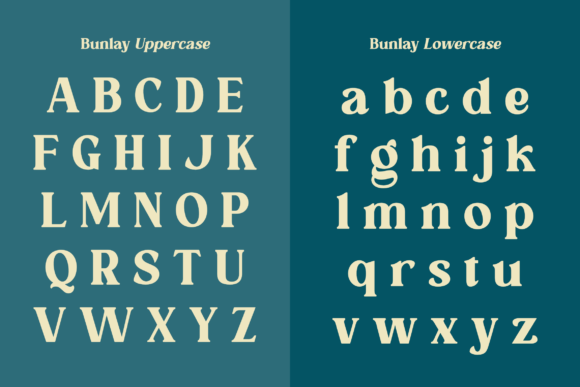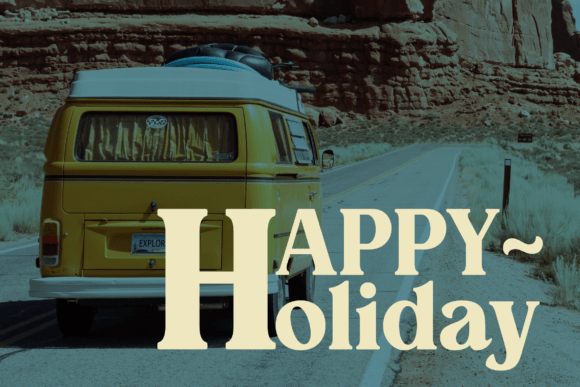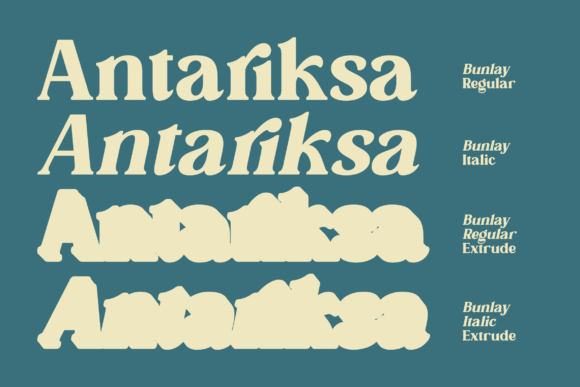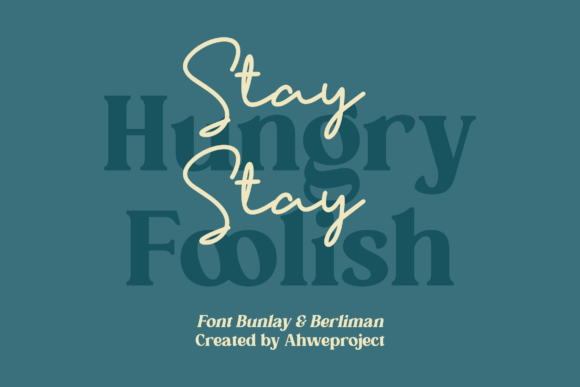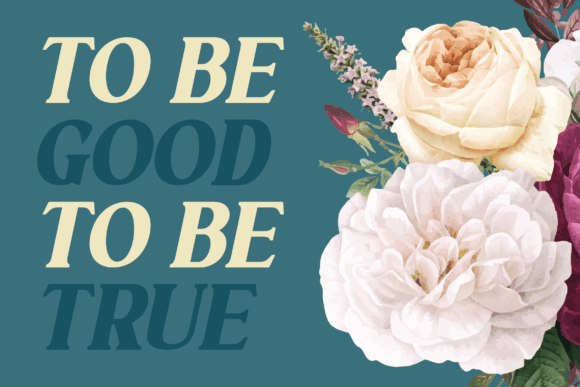
Bunlay Font: A Playfully Nostalgic Serif Font for Your Retro-Inspired Designs
Are you a designer or crafter looking for a font that can add a touch of nostalgia and vintage charm to your creative projects? Look no further than the Bunlay Font! This beautifully crafted serif font is designed to evoke a sense of playfulness and nostalgia, making it perfect for a wide range of design ideas. In this article, we’ll take a closer look at the Bunlay Font, its features, and how you can use it to take your designs to the next level.
A Font that Feels Playfully Nostalgic
The Bunlay Font is a masterfully designed serif font that delivers an incredible vintage aesthetic. Its unique character set and carefully crafted glyphs are designed to evoke a sense of nostalgia and playfulness, making it perfect for designers and crafters who want to add a retro touch to their designs. Whether you’re working on a branding project, a packaging design, or a digital product, the Bunlay Font is sure to bring a smile to your face and a touch of personality to your work.
Masterfully Designed for Creative Freedom
The Bunlay Font is designed to become a true favorite among designers and crafters. Its PUA (Private Use Area) encoding means that you can access all of the glyphs and swashes with ease, giving you the creative freedom to experiment with different design ideas. With the Bunlay Font, you can add a special retro touch to any design project, from logos and branding to stationery and digital products.
Key Features of the Bunlay Font
- Serif Font: The Bunlay Font is a beautifully crafted serif font that delivers a vintage aesthetic.
- Playfully Nostalgic: The font is designed to evoke a sense of nostalgia and playfulness, making it perfect for retro-inspired designs.
- Highly Versatile: The Bunlay Font can be used for a wide range of design projects, from logos and branding to stationery and digital products.
How to Use the Bunlay Font in Your Designs
The Bunlay Font is incredibly easy to use and can be incorporated into your designs in a variety of ways. Here are a few ideas to get you started:
- Branding and Logos: Use the Bunlay Font to create a unique and memorable logo for your brand.
- Packaging Design: Add a touch of nostalgia to your packaging designs with the Bunlay Font.
- Stationery: Use the Bunlay Font to create beautiful and unique stationery, such as business cards, letterheads, and invoices.
- Digital Products: Incorporate the Bunlay Font into your digital products, such as ebooks, courses, and software.
Tips and Tricks for Getting the Most Out of the Bunlay Font
Here are a few tips and tricks for getting the most out of the Bunlay Font:
- Experiment with Different Sizes: The Bunlay Font looks great in a variety of sizes, so don’t be afraid to experiment and find the perfect size for your design.
- Pair it with Other Fonts: The Bunlay Font pairs well with a variety of other fonts, so try pairing it with a sans-serif font for a unique contrast.
- Use the Swashes: The Bunlay Font comes with a range of swashes that can be used to add a touch of personality to your designs.
The Bunlay Font is a beautifully crafted serif font that delivers a playfully nostalgic and vintage aesthetic. With its PUA encoding and highly versatile design, it’s perfect for a wide range of design projects. Whether you’re a designer or crafter, the Bunlay Font is sure to become a true favorite in your collection. So why wait? Download the Bunlay Font today and start adding a touch of nostalgia and personality to your designs!